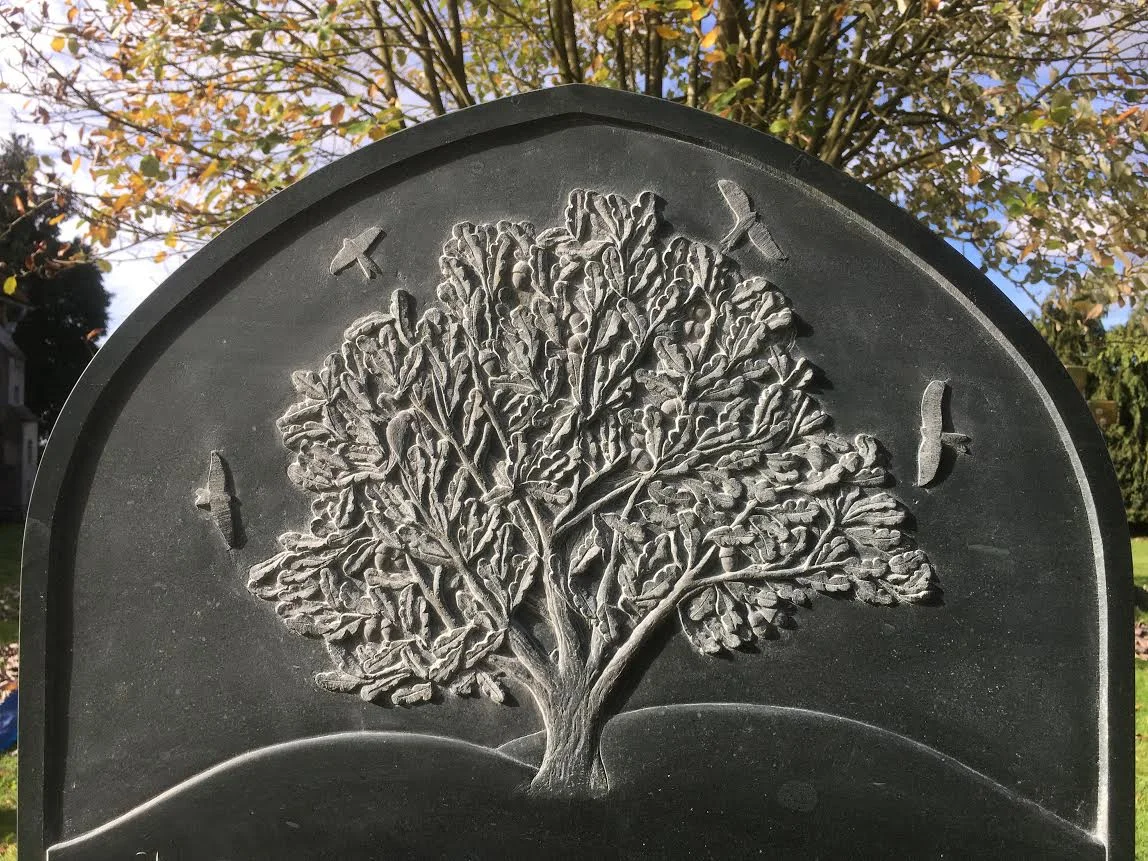
An oak tree that had stood in their family garden was the starting point for the design of this memorial for a beloved father, John Warnford-Davis, made by Tom Sargeant. John’s children all remembered playing around and in the tree while they were growing up at the family home. Discussing their ideas with Tom for a gravestone to commemorate their father, they developed the idea to use the concept of this tree to depict their family.
The headstone, carved in Honnister green slate, features a tree in relief-carving, surrounded by 4 red kites (the headstone is fixed in the Chilterns where red kites were successfully introduced). Within the branches of the tree are 17 acorns – one to represent each of his grandchildren. Tom designed brush-influenced capital letters for the simple inscription.
Tom says “As makers of bespoke memorials, we have the opportunity to make artworks that remember people as individuals. I love the idea that the grandchildren and perhaps their children can, in the future, visit the stone and see their own unique connection to John.”